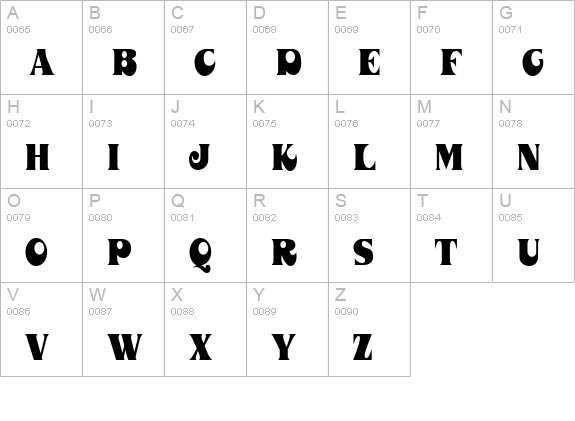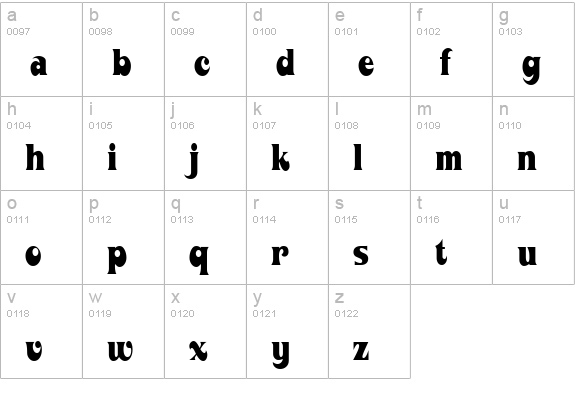
Mahaney Regular Font Details
Mahaney Regular is the standard, neutral variant in the Mahaney typeface family \xE2\x80\x94 well suited to general body text, paragraphs, and standard typographic work.
Mahaney Regular is a modern and versatile font that effortlessly combines elegance with simplicity. Its clean and legible design makes it perfect for a wide range of design projects, from logo creation to website design and everything in between. With its balanced proportions and smooth curves, Mahaney Regular exudes a timeless charm that is both captivating and approachable. Whether used for headings, body text, or even in large display sizes, this font adds a touch of sophistication to any project. One of the best features of Mahaney Regular is that it is available for free. That's right, you can download this remarkable font at FontsMarket.com without spending a dime. This means that you can elevate your designs without breaking the bank. The versatility of Mahaney Regular is further enhanced by its extensive character set, including uppercase and lowercase letters, numbers, punctuation marks, and special characters. This allows you to truly personalize your designs and create something unique. Whether you're a professional graphic designer or someone who simply enjoys creating beautiful things, Mahaney Regular is a font that will undoubtedly become a staple in your typographic arsenal. Its seamless blending of modern aesthetics with a touch of classic elegance makes it a font that stands the test of time. So why wait? Head over to FontsMarket.com today and take advantage of the opportunity to download Mahaney Regular for free. Unleash your creativity and let this font enhance your designs with its effortless elegance and timeless appeal.